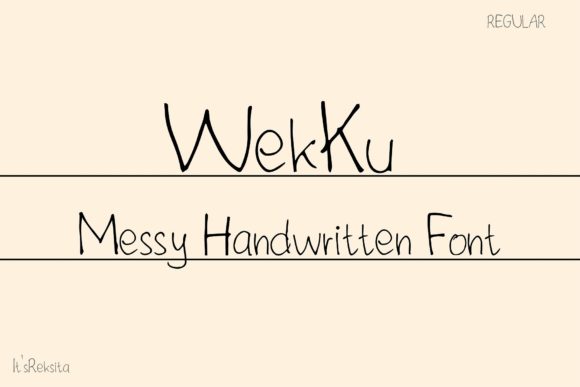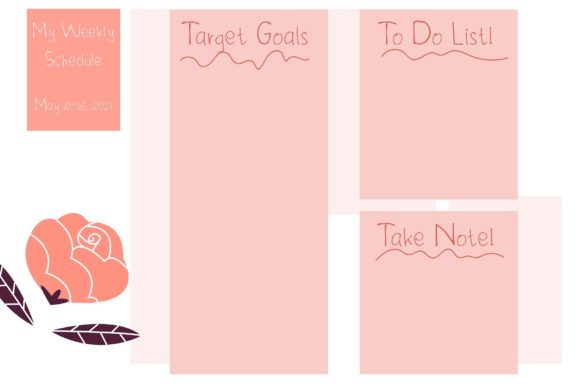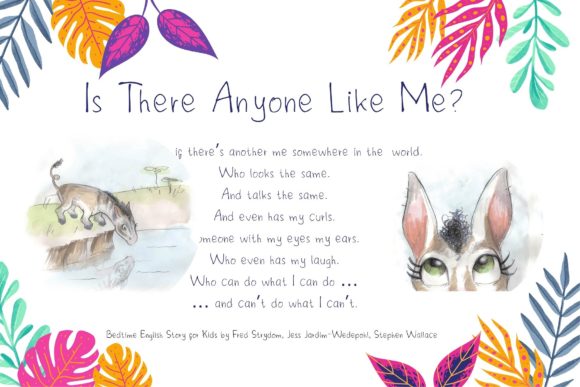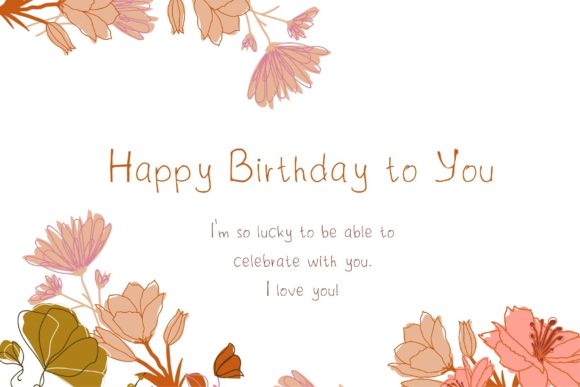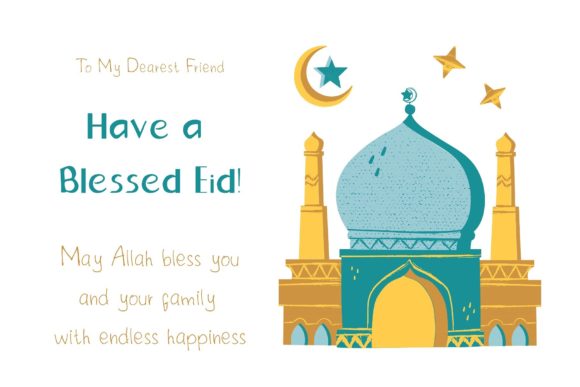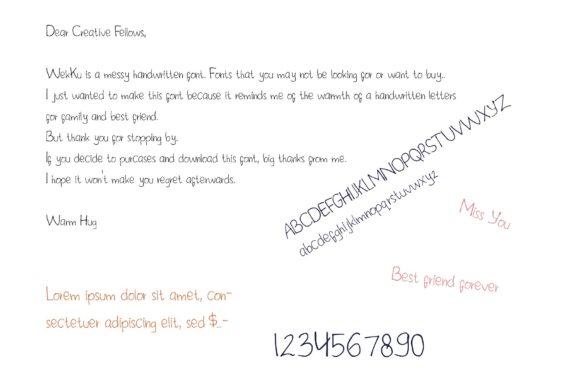
Wekku Font
About Wekku Font
“Wekku” is a charming and messy handwritten font that brings a unique and informal touch to your designs. Its hand-carved and cozy-looking characters give your projects a playful and artistic appearance.
The irregular and slightly messy strokes of “Wekku” add a sense of authenticity and a handmade feel to your designs. Whether you’re working on greeting cards, invitations, social media graphics, or any other project where you want to create a relaxed and informal atmosphere, this font is a great choice.
The informal nature of “Wekku” makes it perfect for projects that require a touch of whimsy and creativity. It’s particularly well-suited for designs that aim to capture a sense of personal expression and individuality. You can use it to create personalized notes, casual branding materials, handmade crafts, or any other project that calls for a unique and informal style.
By using “Wekku,” you can transform your projects into playful designs that stand out with their cozy and handcrafted aesthetic. Embrace the irregularities and the informal accents of this font, and let it add a touch of artistic charm to your work.